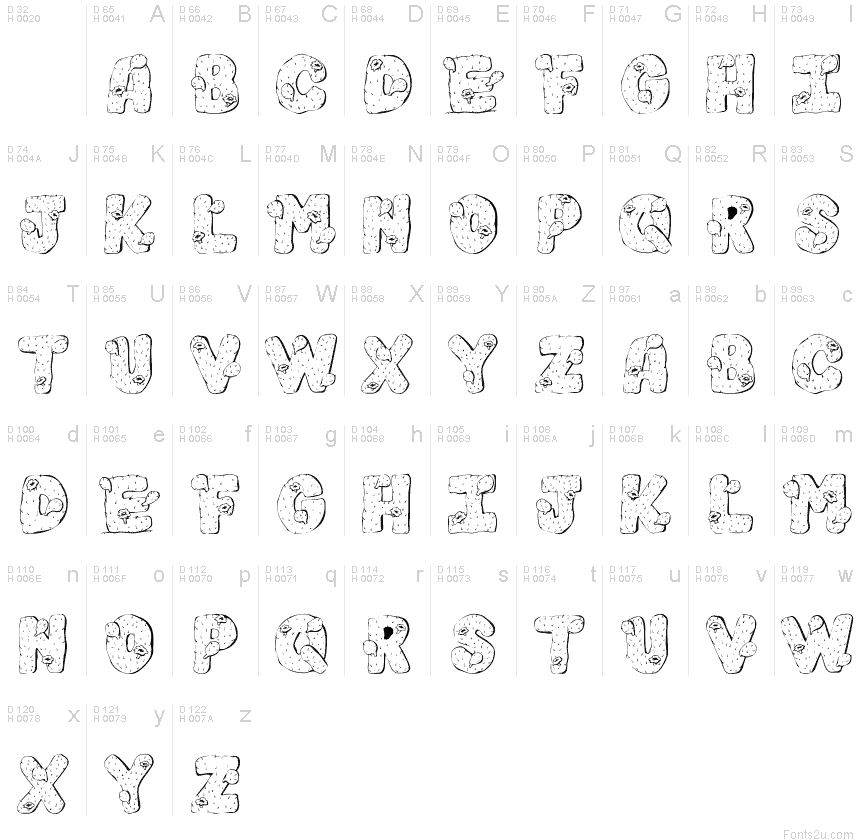
101! Cacti font by Nght is a free cartoon display typeface that turns every word into a lumpy, hand-drawn cactus. Each letter looks puffed-up and squishy yet covered in tiny prickles, with sketchy outlines and knotty bumps that feel straight out of a doodled desert scene. It has an easygoing, goofy energy that makes text feel fun, friendly, and just a little wild.
Using 101! Cacti font, you can instantly theme kids’ posters, birthday invites, summer camp flyers, taco-truck branding, playful logos, or social media graphics around a desert or Western vibe. This free font shines at large sizes where its inky texture and quirky cactus shapes can breathe; pair it with a clean, simple sans serif for body text so the spiky letters stay the star.